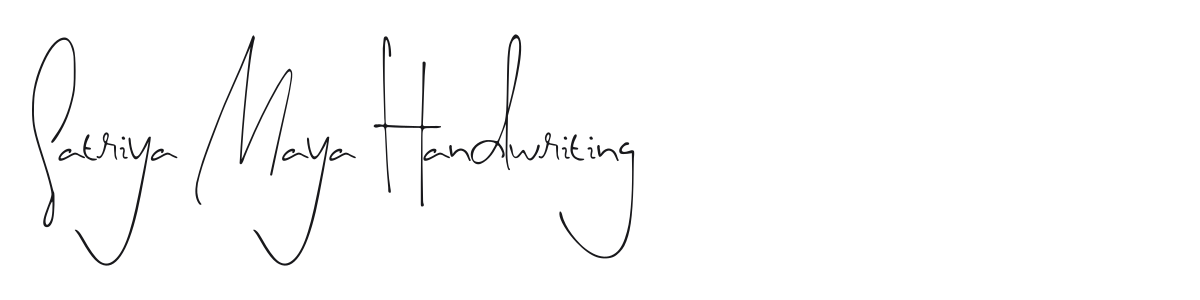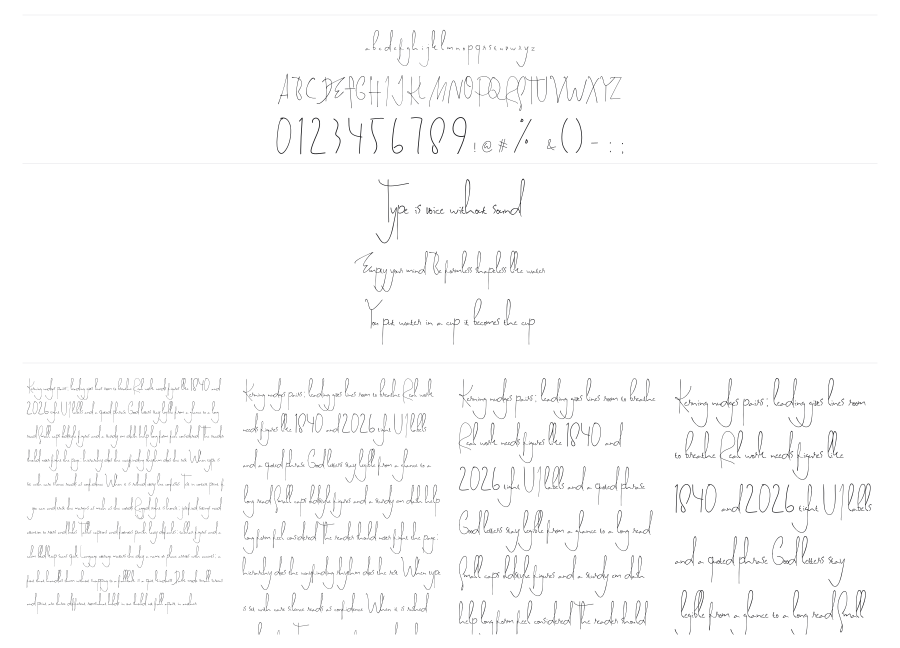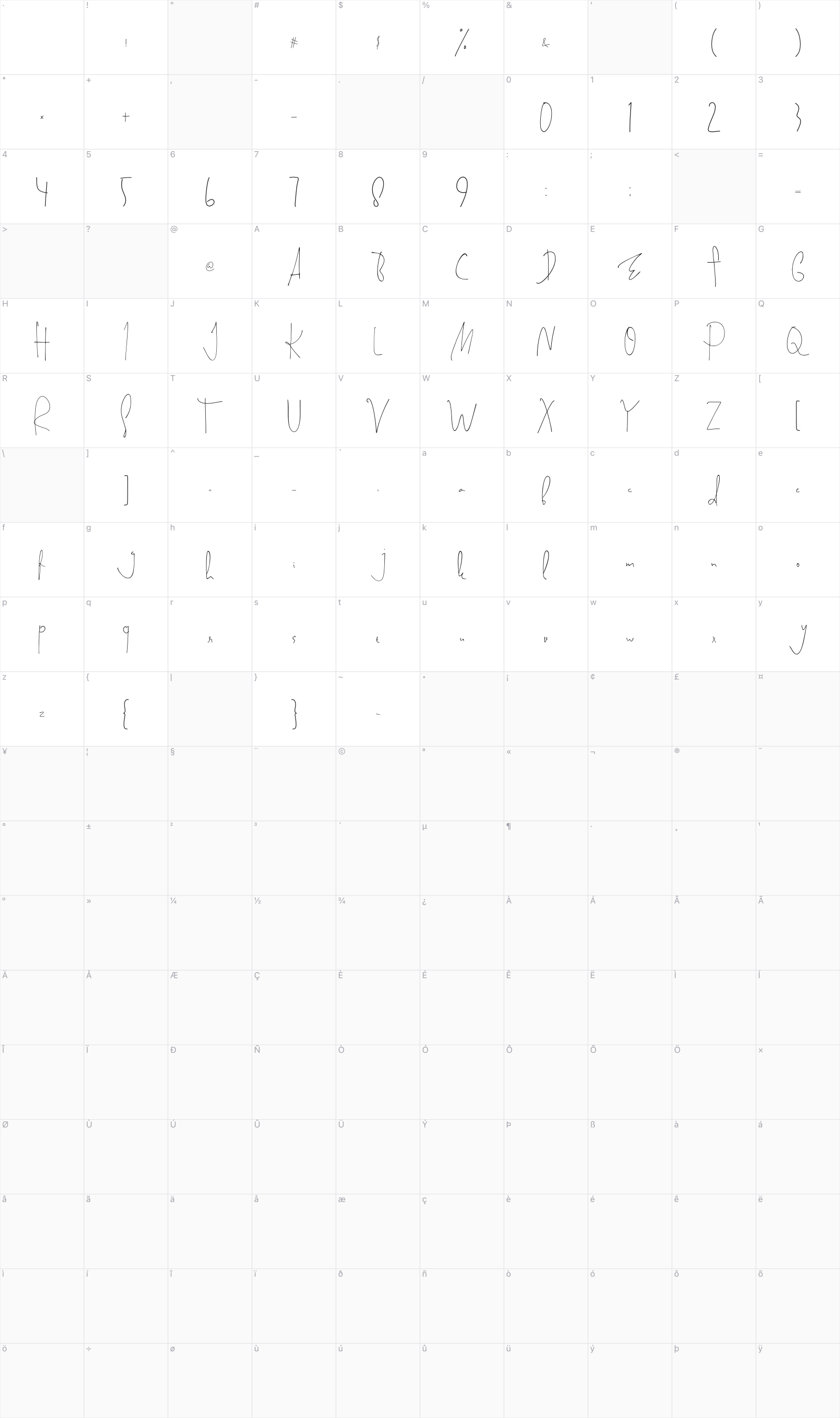
Satriya Maya Handwriting
by Muhamad Ali Hasan
Satriya Maya Handwriting is a thin, flowing cursive script that mimics the loose, natural movement of everyday handwriting. Expressive descenders and looping connections give it an authentic, personal quality that feels genuinely hand-drawn rather than typeset. It carries warmth and informality well at large display sizes.